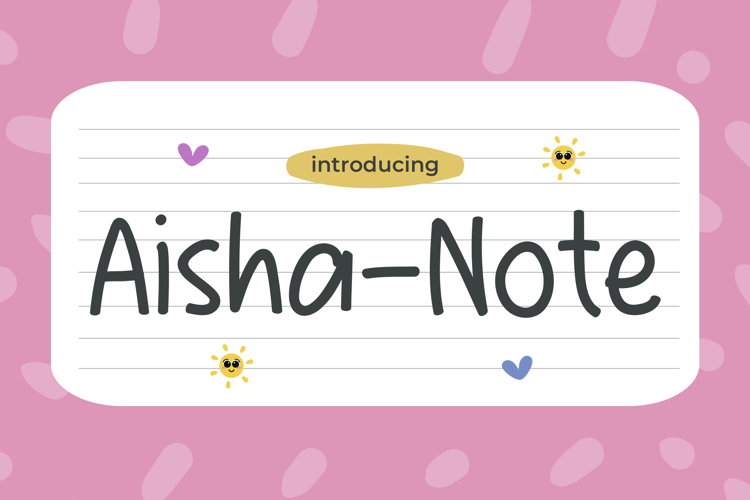
Aisha Note Font
Aisha’s Note Font – Adding Joy to Kids’ Designs!
Aisha’s Note Font brings cheerfulness and fun to every children’s design project! With its playful design, each letter in this font introduces a delightful and imaginative atmosphere. Suitable for various kids’ creations, from storybooks to learning materials.
Choose Aisha’s Note Font now to bring a playful and joyful touch to your children’s designs, and let creativity flourish with delight!